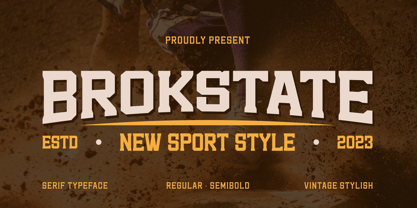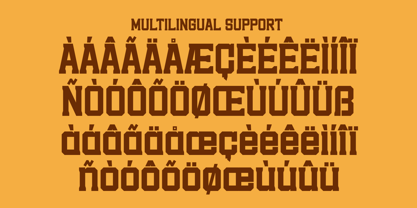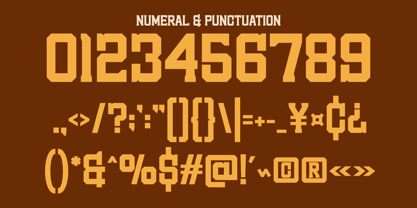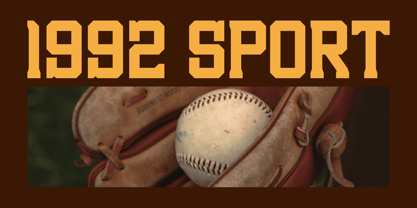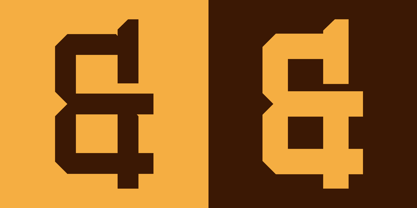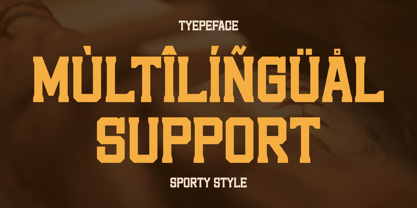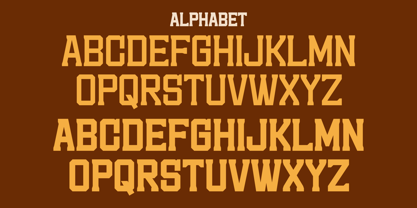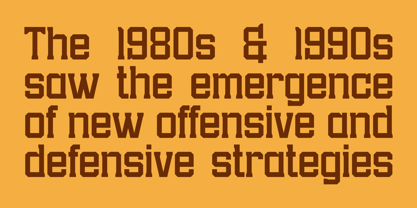
Brokstate
by Marvadesign
Inrtroducing Brokstate is a bold old-school slab serif font that captures the essence of vintage retro aesthetics. Its strong, structured design evokes a classic athletic vibe, making it an excellent choice for projects requiring a sporty and nostalgic feel.
With its timeless appeal, Brokstate is particularly well-suited for sports posters, varsity branding, team merchandise, and other athletic-themed designs. Its bold strokes and clean edges ensure maximum readability, while its retro-inspired character adds a distinctive charm to any visual composition.
This font seamlessly blends functionality with a vintage flair, making it a versatile option for projects aiming to convey strength, tradition, and athletic excellence.